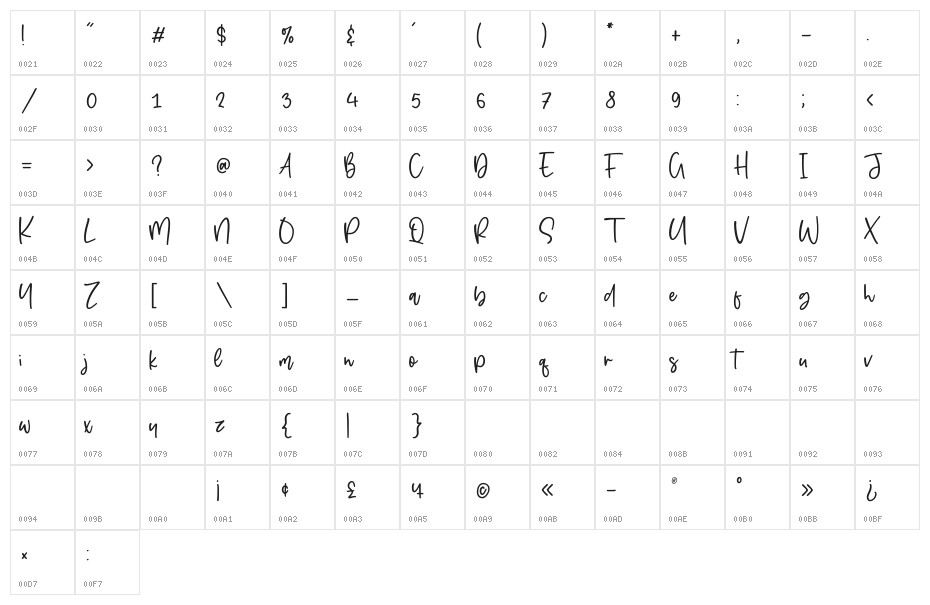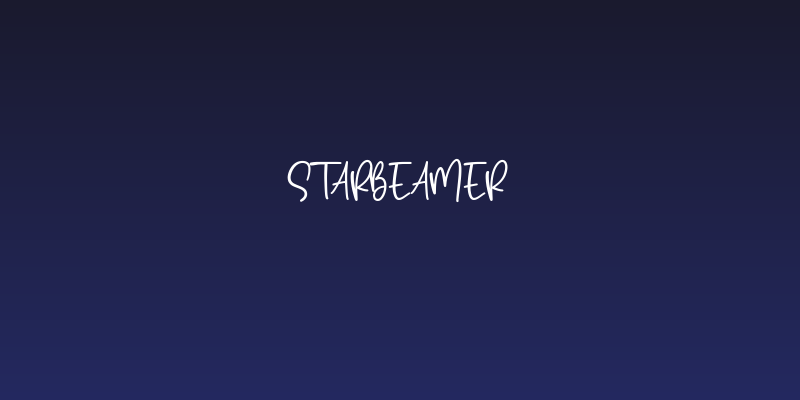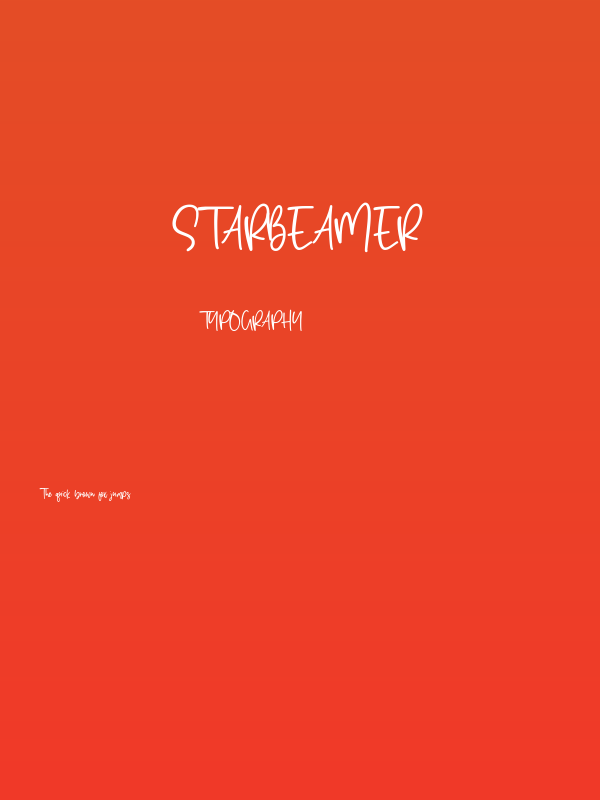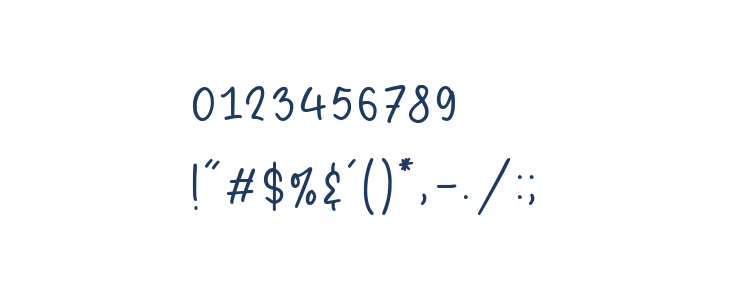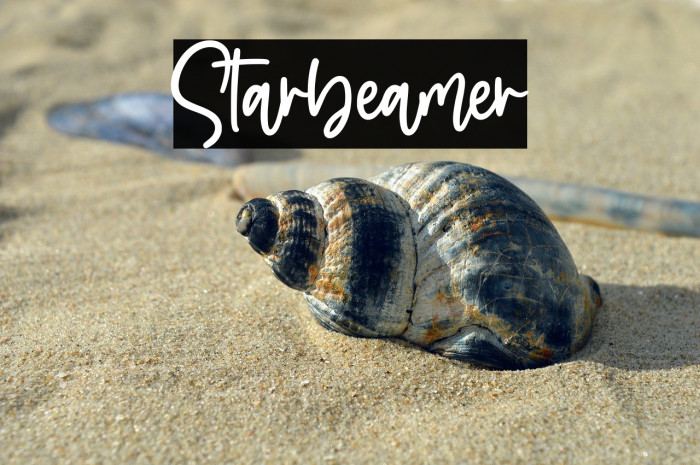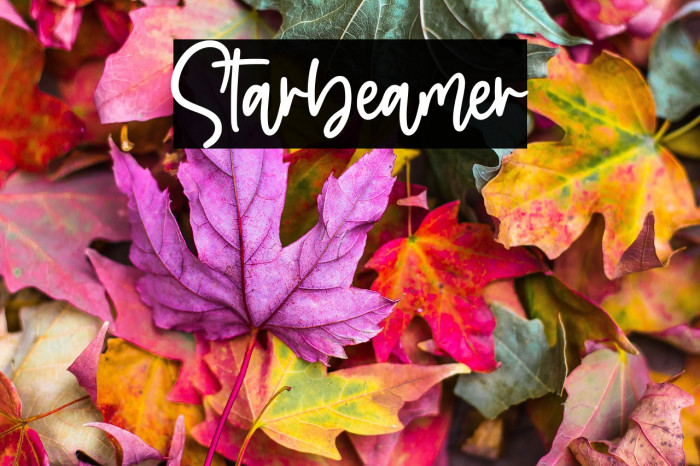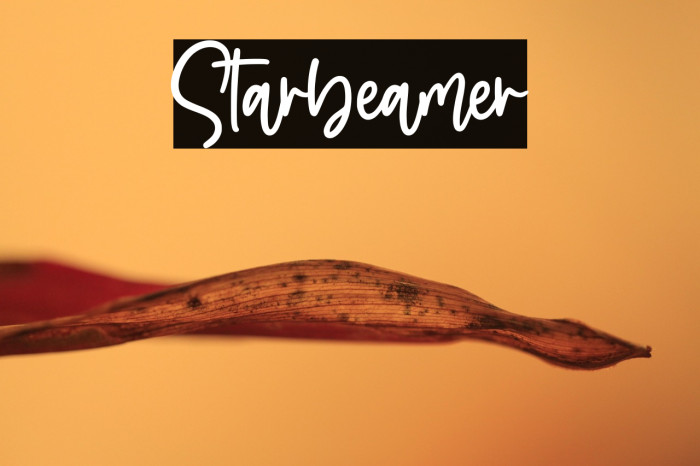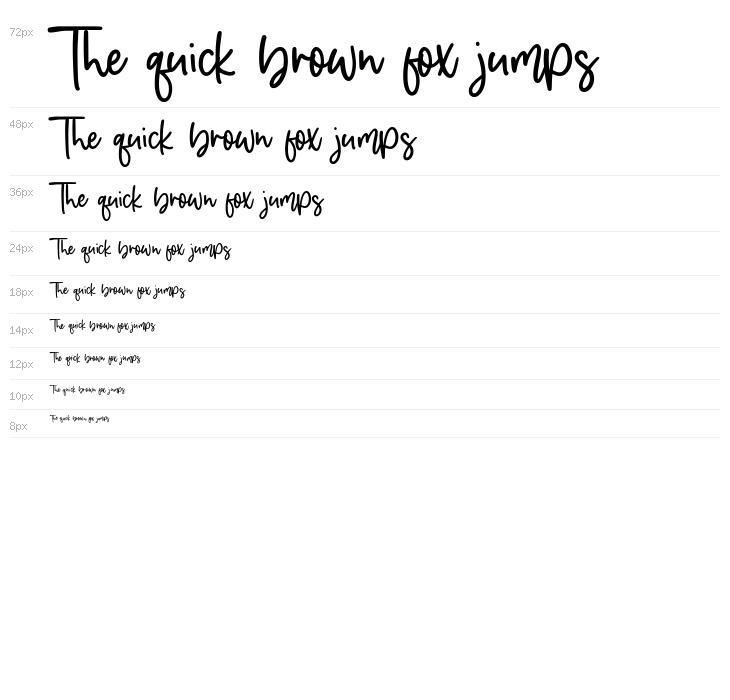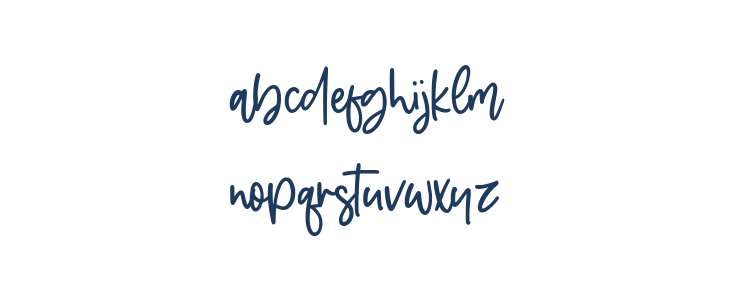
Starbeamer Font
Starbeamer Description
This font features a playful and casual handwritten style, characterized by its smooth, flowing lines and slightly irregular shapes that mimic natural handwriting. The uppercase letters are tall and slender, with a consistent stroke width that gives them a clean, modern appearance. The lowercase letters maintain a similar style, with some characters featuring unique loops and curves that add a touch of whimsy. The numerals are straightforward and align well with the overall style, while the special characters are crafted to match the font's casual aesthetic. This font's overall appearance is friendly and approachable, making it suitable for a variety of creative projects.
| Overall Style | Modern, Casual |
| Use Case | Logos, Headlines, Social Media |
| Proposed Projects | Ideal for greeting cards, invitations, social media graphics, and personal branding projects. |